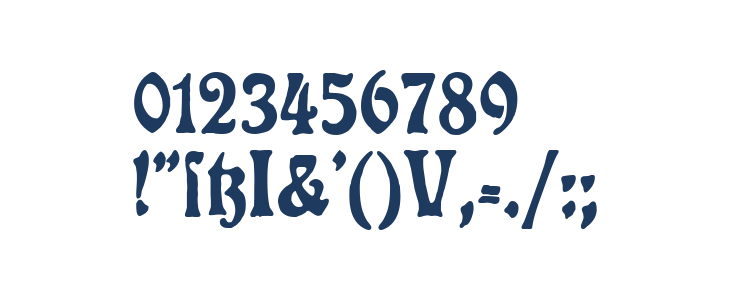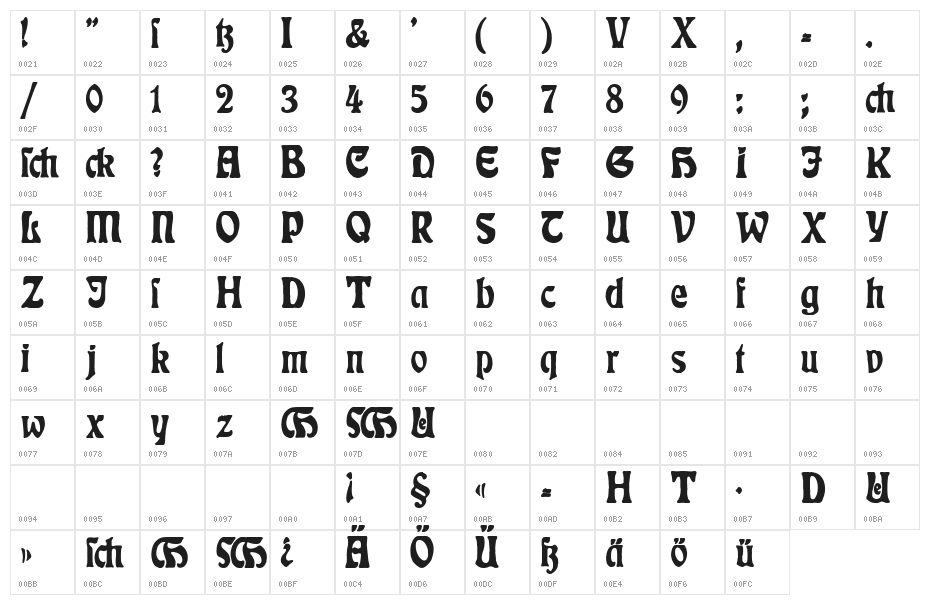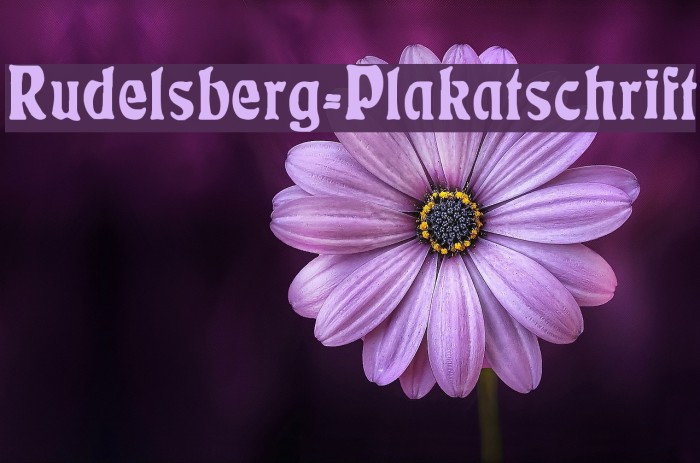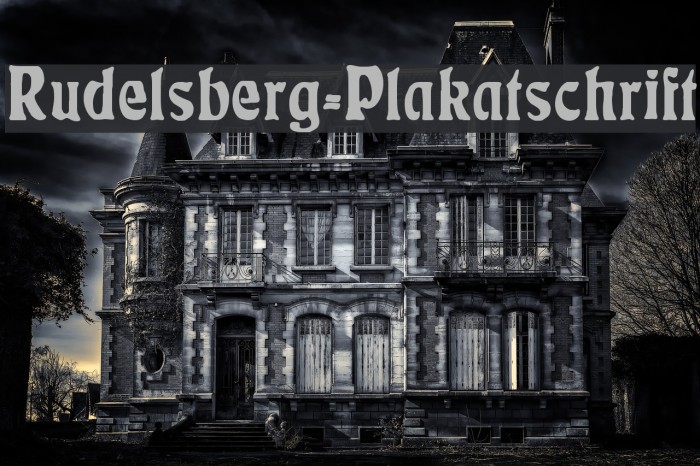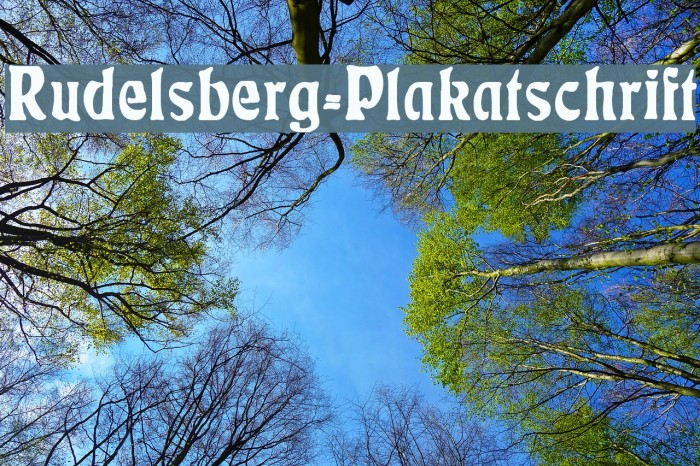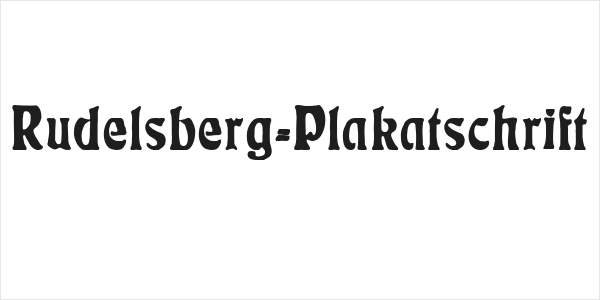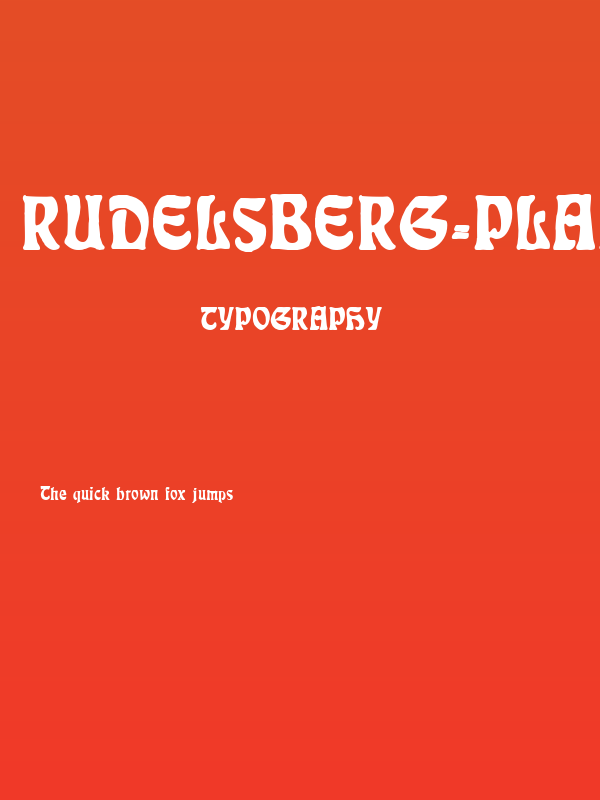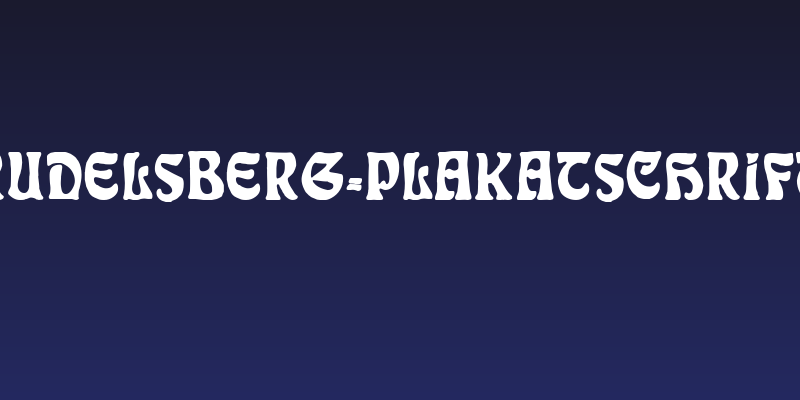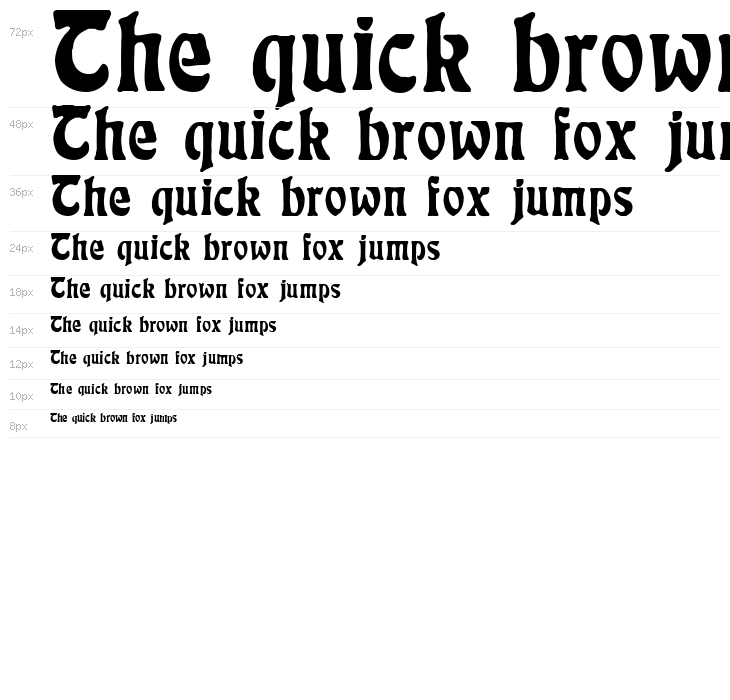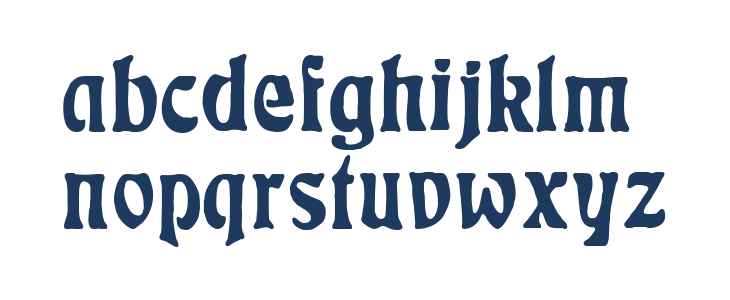
Rudelsberg-Plakatschrift Font
Rudelsberg-Plakatschrift Description
This font features a bold and striking design with a strong presence. The characters are thick and robust, with a slightly condensed appearance that gives them a powerful and impactful look. The strokes are consistent in width, providing a uniform and cohesive aesthetic. The font has a decorative flair, with unique curves and angles that add character and distinction to each letter. The uppercase and lowercase letters maintain a harmonious balance, while the numerals and special characters are crafted to match the overall style. This font is ideal for making a statement and capturing attention.
| Proposed Projects | Ideal for posters, signage, branding, and any project requiring a bold and attention-grabbing typeface. |